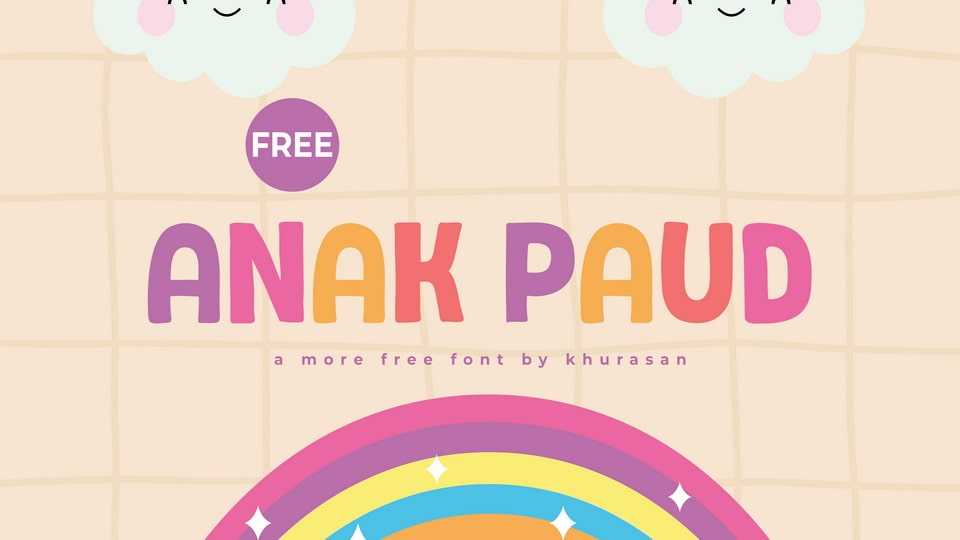
Download Anak Paud font, a sweet and colorful display typeface created with little learners in mind and its chunky, rounded letterforms and cheerful vibe.